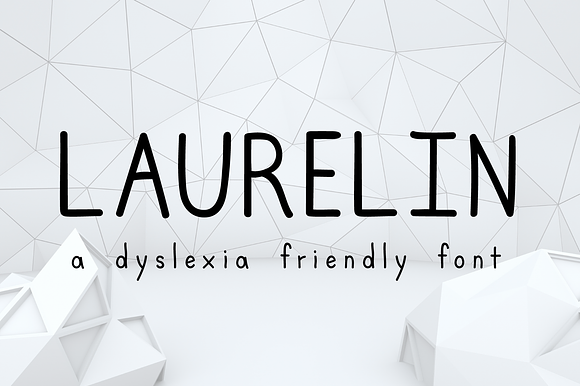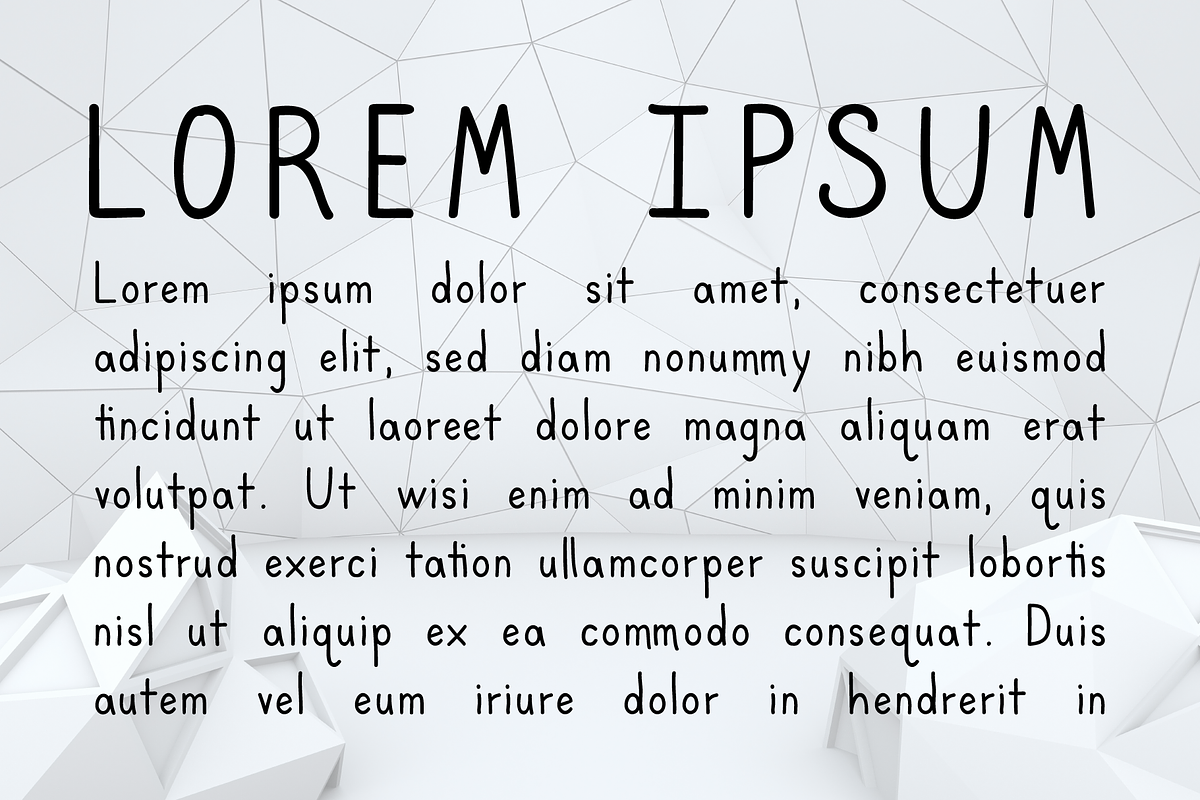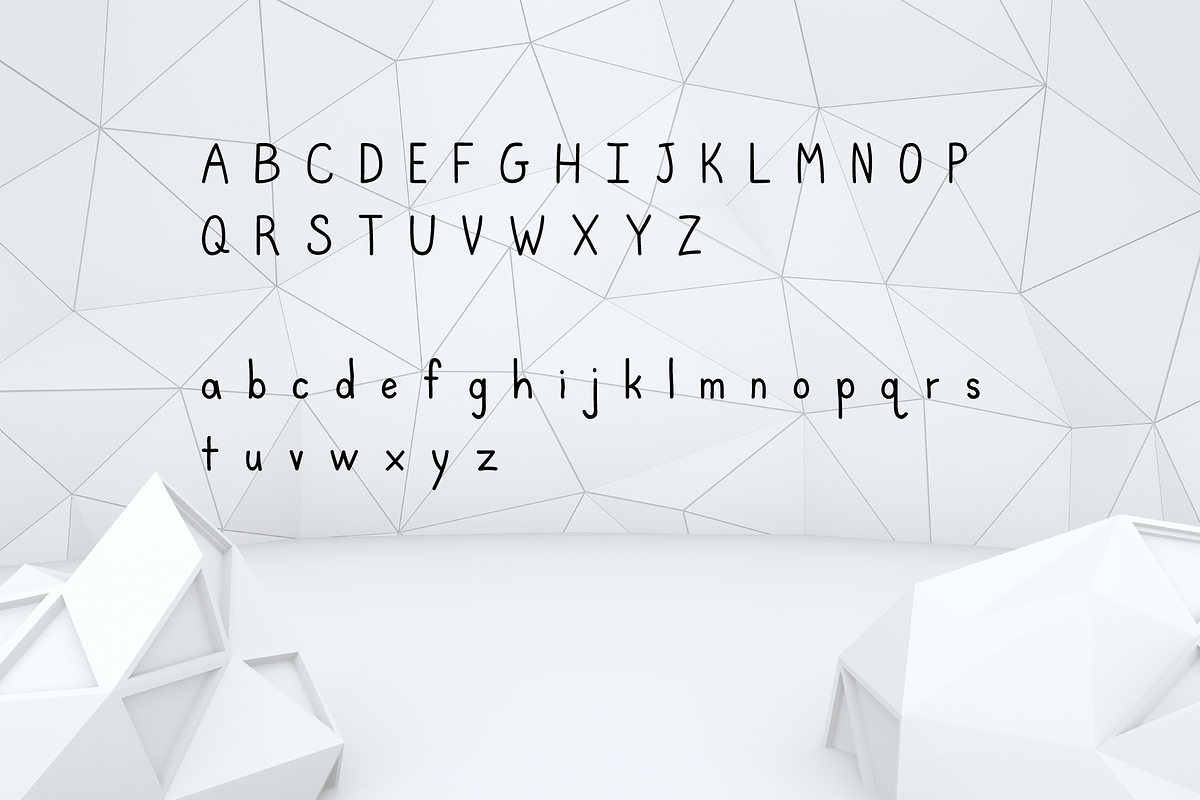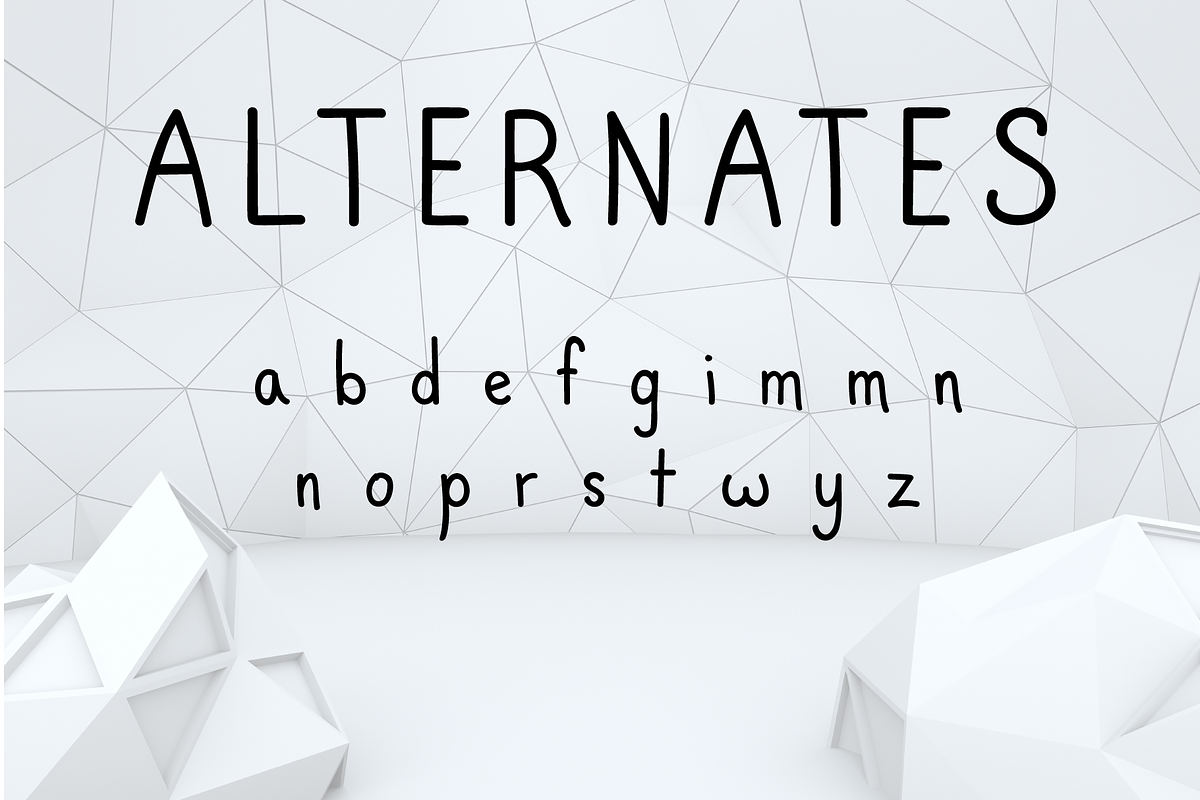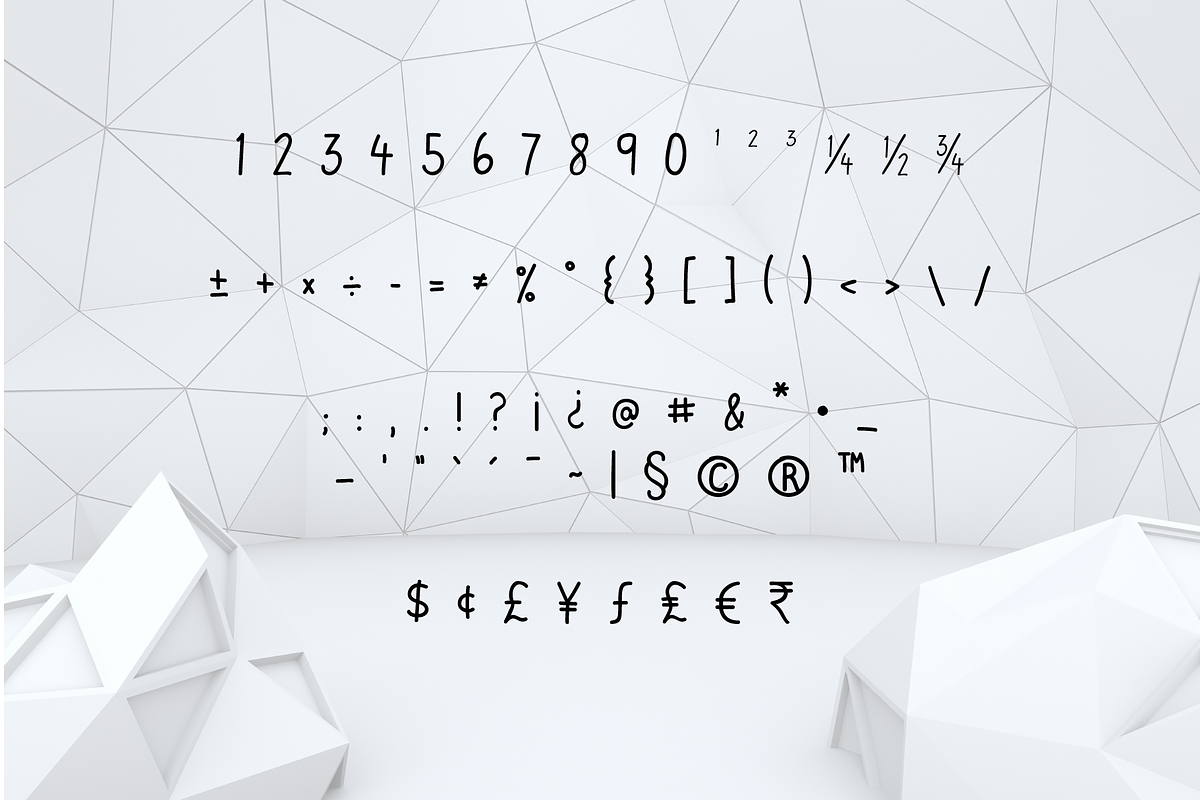
Laurelin, a dyslexia friendly font
I decided to develop a simple, approachable font for people living with dyslexia that is more robust than what I saw out on the market. So, I created this fun handwritten comic sans font that includes alternates and ligatures. You can customize to your heart's content!
For the initial release, you get the otf with all developed glyphs (168), ligatures, and alternates. All money and math characters are included, as well as punctuation and numbers. I will be expanding the glyphs periodically and updating the file.